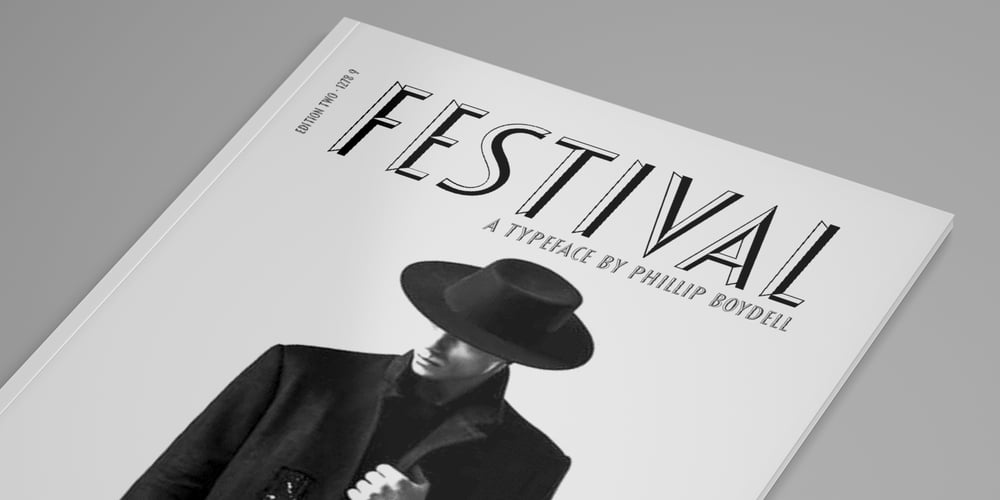
Festival
Festival font
Festival Font Family was designed by Phillip Boydell and published by Monotype. Festival contains 1 styles and family package options. The Festival Titling font was cut by Monotype in 1950 as the official display face for the Festival of Britain which was staged in 1951. Used for all official Festival announcements, Festival Titling was made available for general use in 1952. The festive feel of this design together with the clean glitter and novelty make it a useful face for display and advertising use.